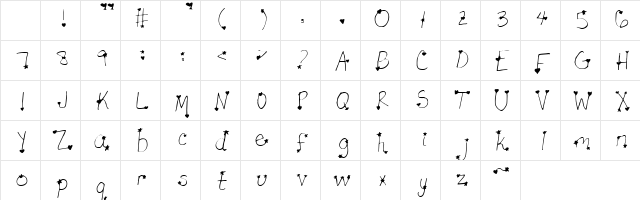
Complete Teen Crush Light glyph index. Displaying only characters natively supported by Teen Crush Light font.
Teen Crush is a composed and adaptable typeface that performs quietly and consistently across a wide range of design contexts. Its slender proportions lend an understated elegance to any composition.